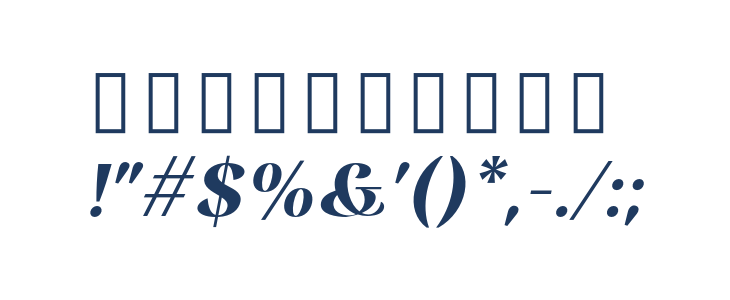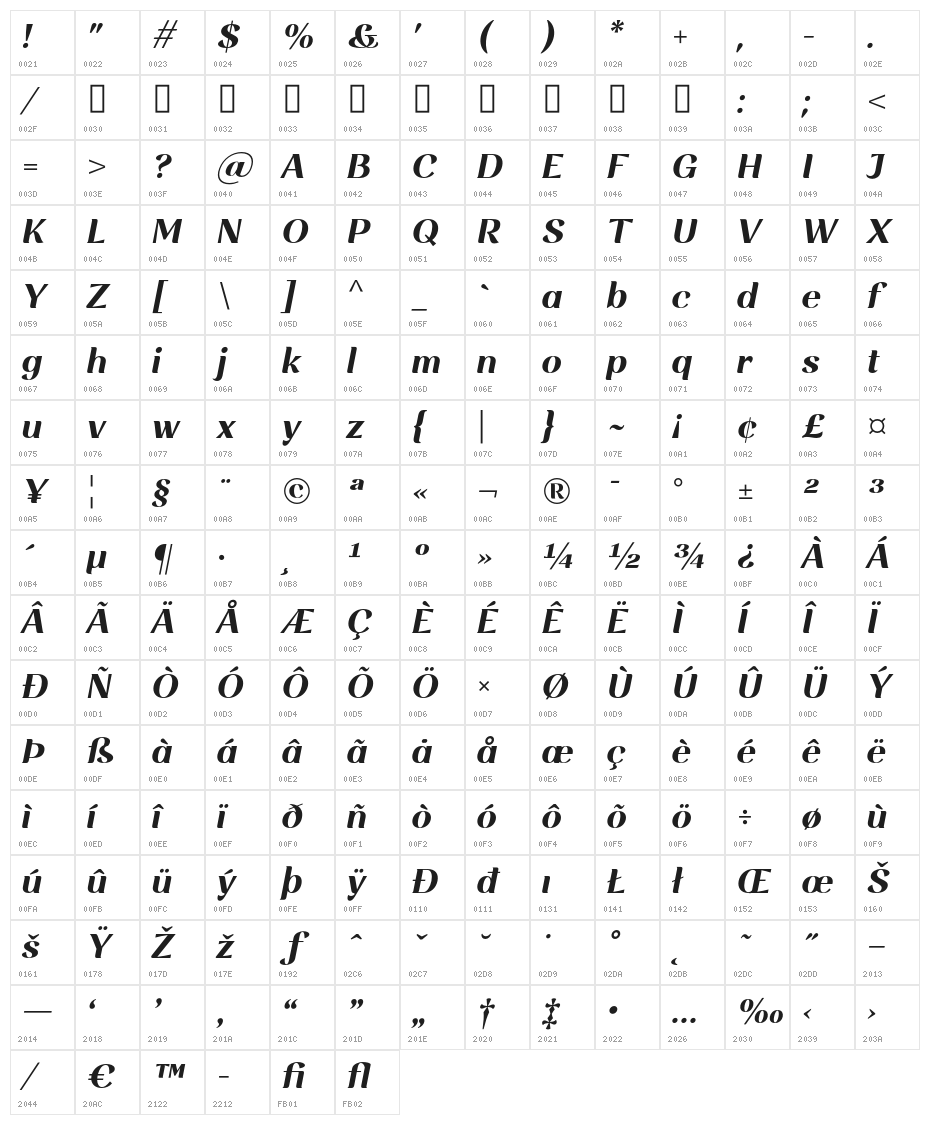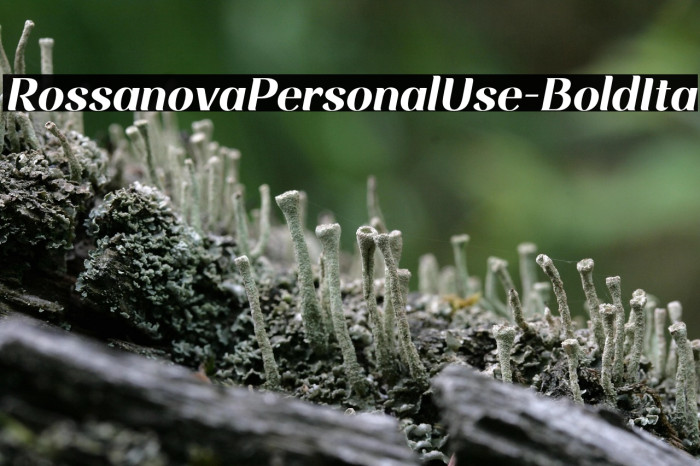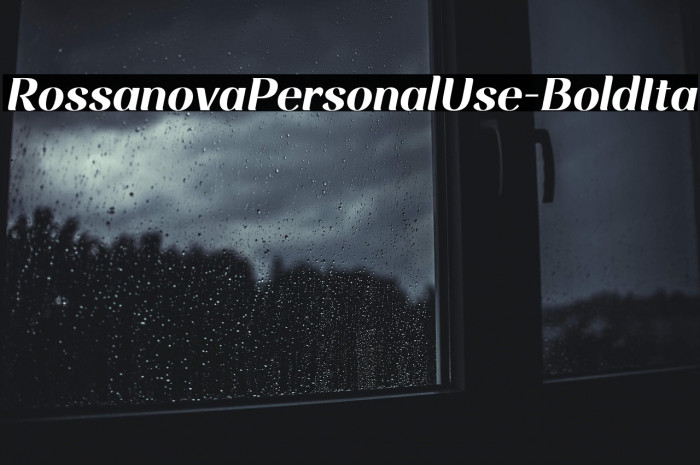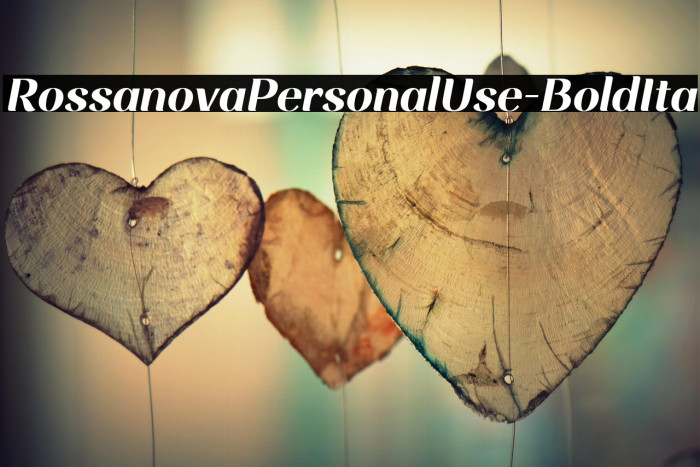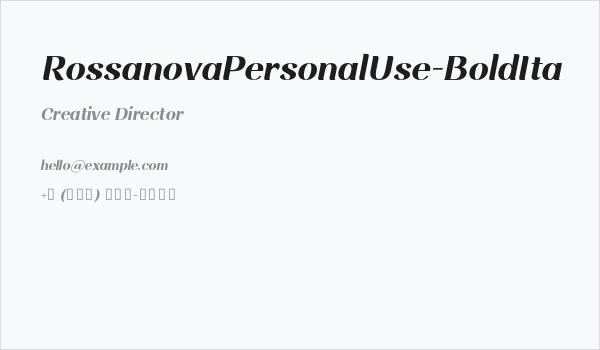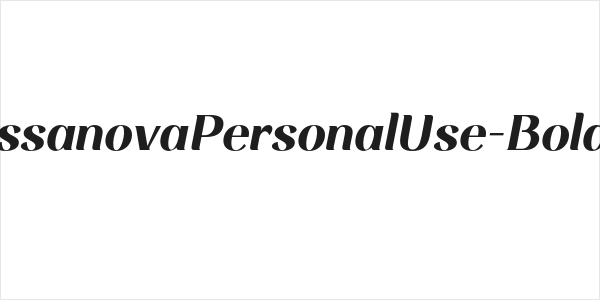
RossanovaPersonalUse-BoldIta Font
RossanovaPersonalUse-BoldIta Description
This font exhibits a bold and italicized style, characterized by its elegant and flowing letterforms. The uppercase letters are strong and commanding, while the lowercase letters maintain a smooth and consistent flow. The numerals are clear and distinct, complementing the overall design. Special characters are well-integrated, adding versatility to the font. The italic slant adds a dynamic and sophisticated touch, making it suitable for a variety of design applications. The strokes are moderately thick, providing a balanced contrast that enhances readability without sacrificing style.
Overall StyleClassic
Use CaseHeadlines, Logos, Invitations
Proposed ProjectsIdeal for branding, editorial design, invitations, and elegant signage.